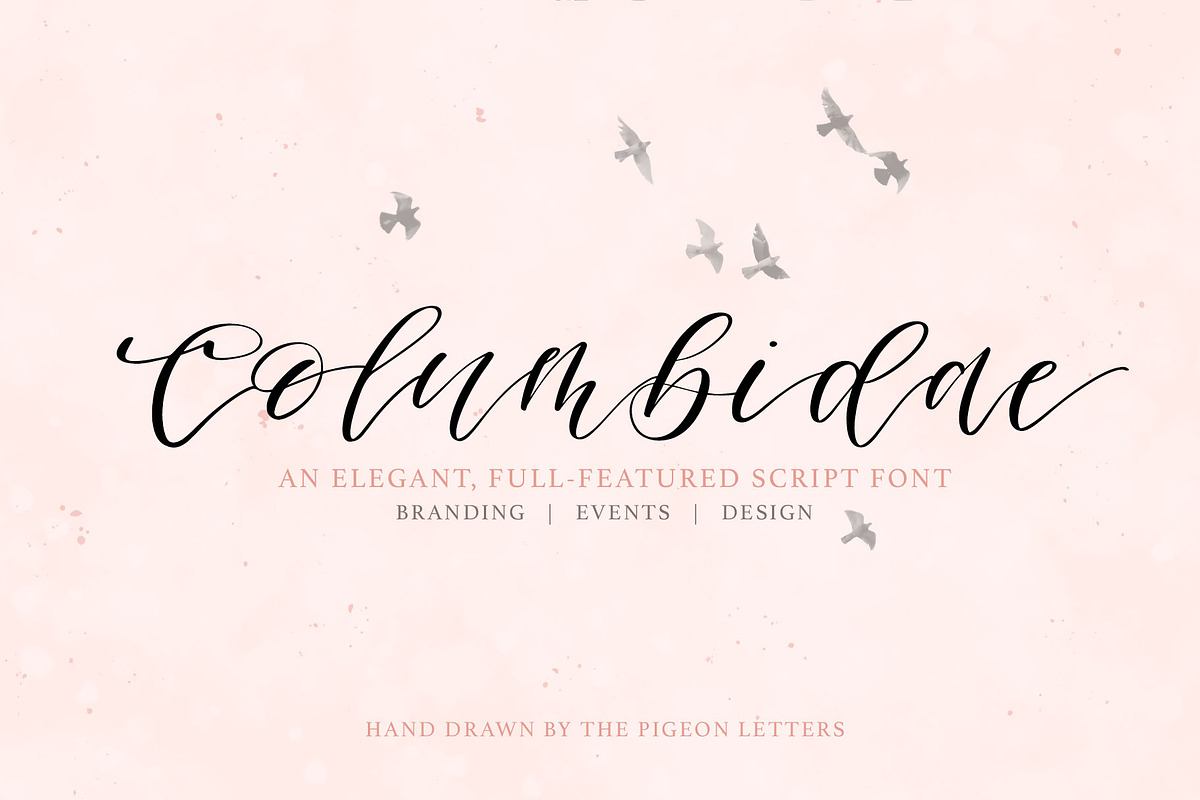
The Columbidae Elegant Calligraphy Font Free Download is a refined and sophisticated calligraphy typeface that adds a graceful, handwritten touch to your designs. Perfect for wedding invitations, luxury branding, logos, greeting cards, and high-end stationery, this font exudes elegance and class.
With its flowing, delicate strokes and artistic flair, Columbidae is ideal for any project that needs a stylish and personal touch. It includes uppercase and lowercase letters, ligatures, punctuation, and multilingual support, making it versatile for a variety of design applications.